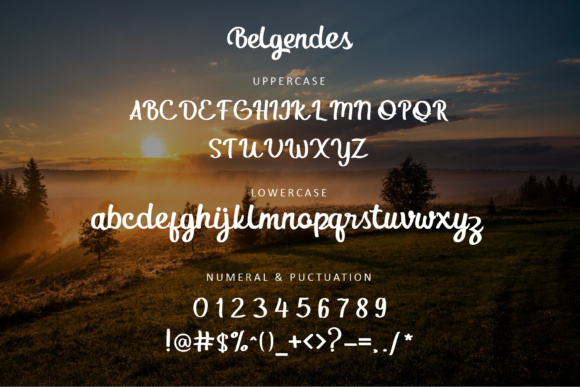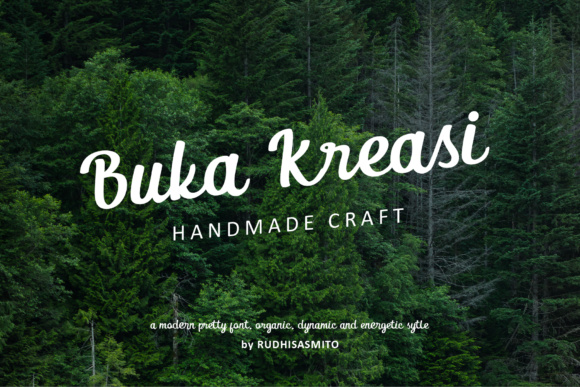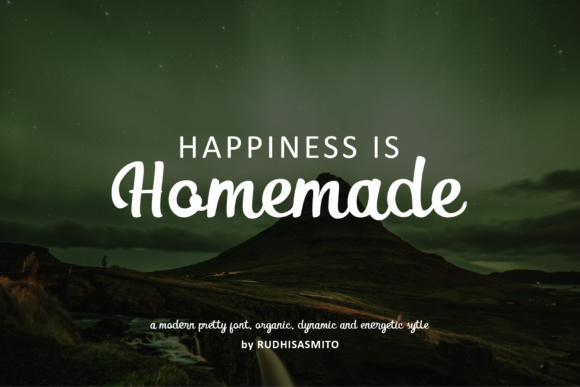
Introducing Belgendes Font: Elevate Your Designs with Modern Calligraphy
Are you looking for a font that adds a touch of elegance and sophistication to your designs? Look no further than Belgendes Font, a stunning modern calligraphy font that’s perfect for headlines, titles, and more. With its organic and energetic style, Belgendes is sure to make your designs stand out in large formats.
What is Belgendes Font?
Belgendes Font is a beautiful, modern calligraphy font designed to bring a sense of luxury and creativity to your designs. Its unique, flowing lines and curves give it an organic feel that’s both energetic and elegant. This font is ideal for use in headlines, titles, and other large-format designs where you want to make a statement.
Key Features of Belgendes Font
• Modern Calligraphy Style: Belgendes Font boasts a modern calligraphy style that’s perfect for designers looking for a fresh and unique look.
• Organic and Energetic: The font’s organic and energetic style gives it a dynamic feel that’s sure to capture your audience’s attention.
• Ideal for Large Formats: Belgendes works best in large formats, making it perfect for use in headlines, titles, and other prominent design elements.
• Easy to Read: Despite its ornate style, Belgendes Font is easy to read, even in large sizes.
Uses for Belgendes Font
Belgendes Font is versatile and can be used in a variety of design projects, including:
• Headlines and Titles: Use Belgendes to create stunning headlines and titles that grab attention.
• Logos and Branding: This font is perfect for creating unique logos and branding elements that reflect your company’s personality.
• Posters and Flyers: Add a touch of elegance to your posters and flyers with Belgendes Font.
• Digital Media: Use Belgendes in your digital media, such as social media graphics, videos, and presentations.
Tips for Using Belgendes Font
To get the most out of Belgendes Font, follow these tips:
• Use it Sparingly: Belgendes Font is best used sparingly, as its ornate style can be overwhelming in large blocks of text.
• Pair it with a Simple Font: Pair Belgendes with a simple font to create contrast and make your design more readable.
• Experiment with Colors: Try out different colors and textures to add depth and interest to your design.
Belgendes Font is a stunning modern calligraphy font that’s perfect for designers and crafters looking to add a touch of elegance and sophistication to their designs. With its organic and energetic style, Belgendes is sure to make your designs stand out in large formats. Whether you’re creating headlines, titles, logos, or branding elements, Belgendes Font is a versatile and beautiful choice.